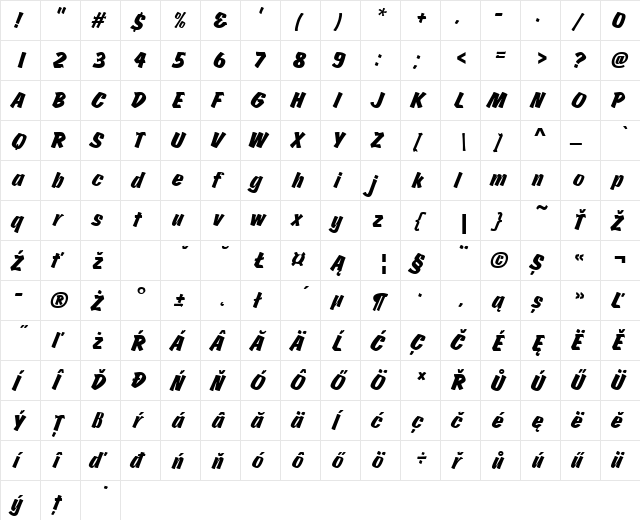
ChurchwardBruDEEReg Italic
Design Context for ChurchwardBruDEEReg Typeface
ChurchwardBruDEEReg is a composed and adaptable typeface that performs quietly and consistently across a wide range of design contexts. The dynamic lean of this cut emphasises speed and emphasis in any layout.
Pro Tip: Use ChurchwardBruDEEReg for emphasis, pull quotes, and subheadings where its slanted energy can add rhythm to the layout.